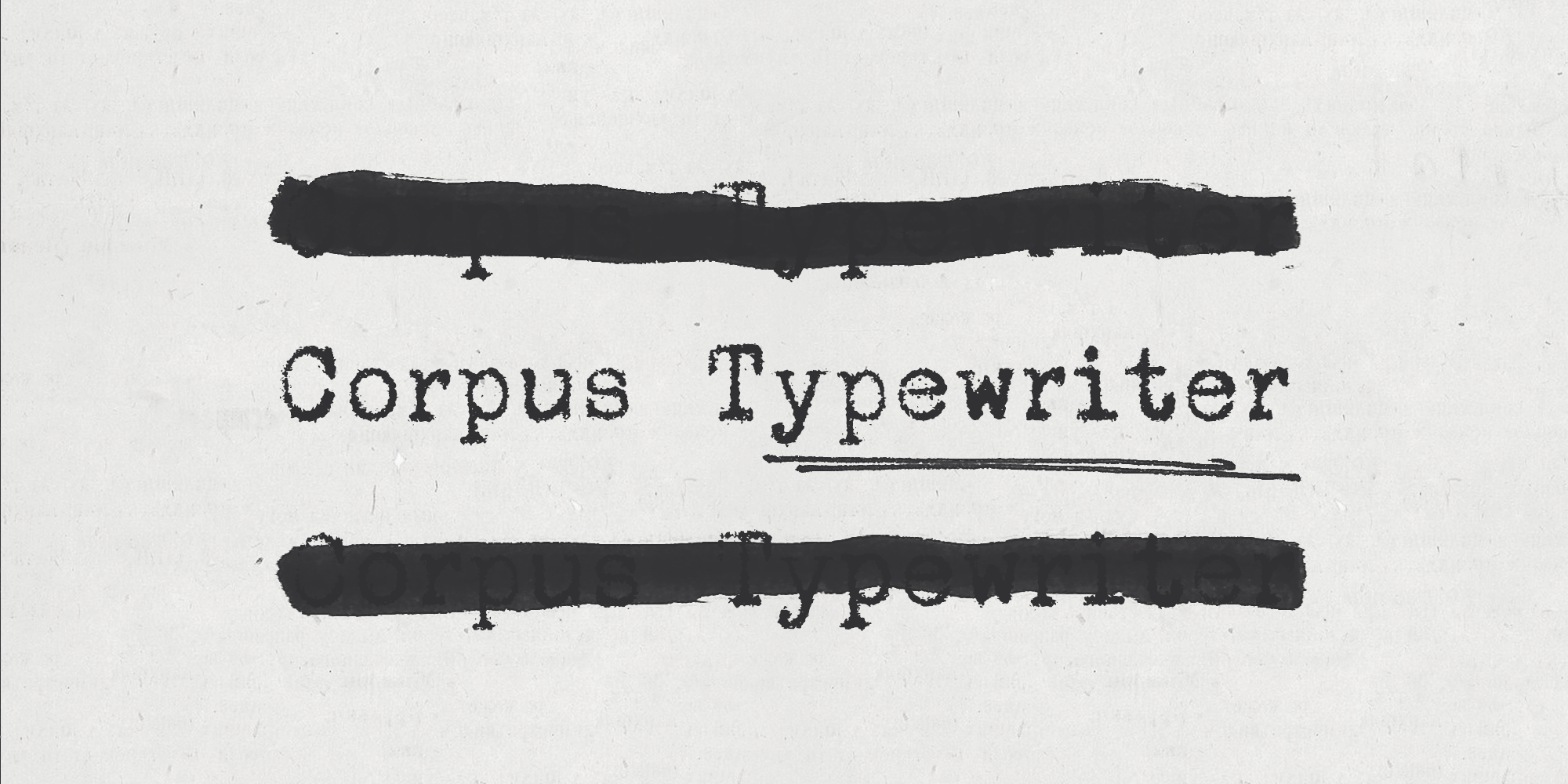
Add vintage authenticity and a classic typewritten feel to your designs with Corpus Typewriter Font Free Download. This monospaced typeface features slightly irregular letterforms and subtle texture, perfectly capturing the charm of old-school typewriters. Corpus Typewriter Font Free Download is ideal for retro posters, historical documents, editorial layouts, stationery, and creative branding projects that need a nostalgic touch.
The mechanical precision and worn character of Corpus Typewriter Font make it a great choice for projects that require a balance of structure and personality. Whether you're designing book covers, zines, movie titles, or themed marketing materials, this font delivers a timeless, authentic look.